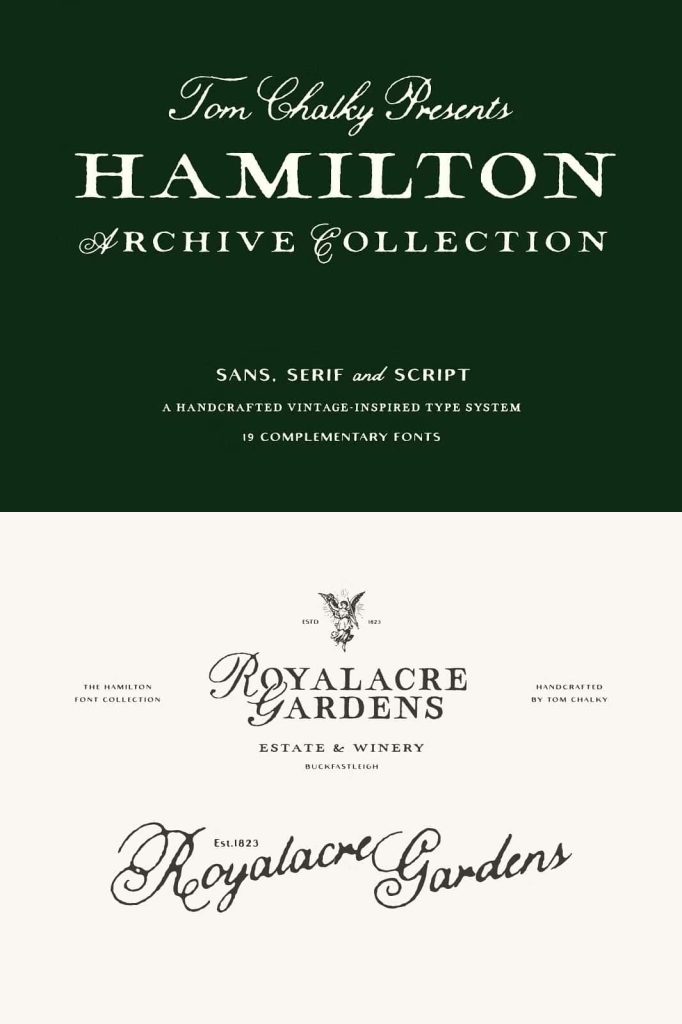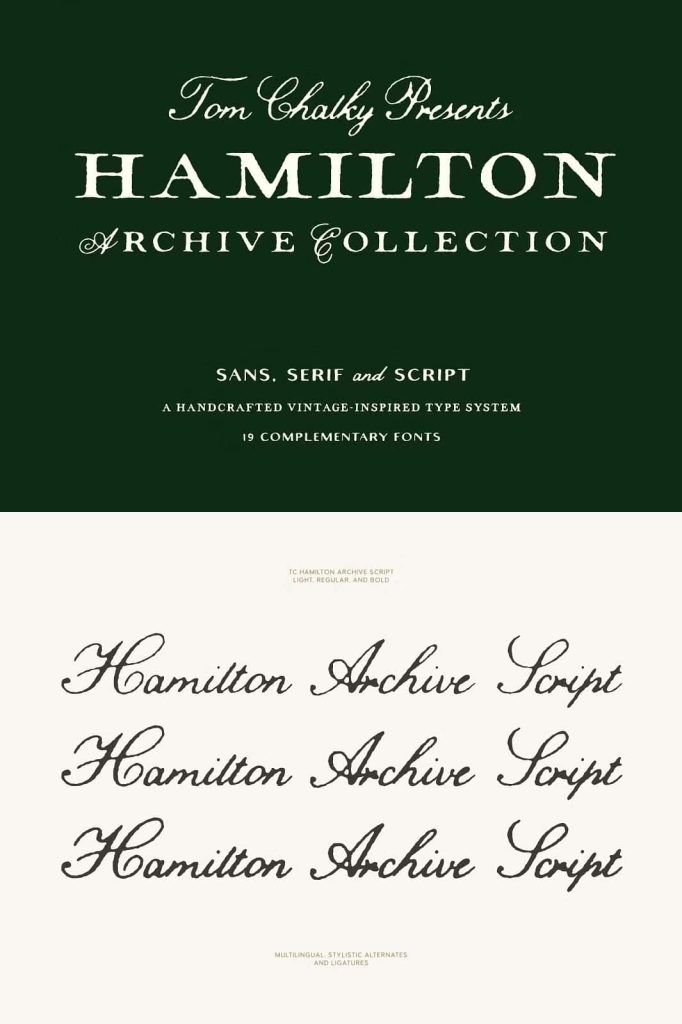
Hamilton Archive Font Collection: Vintage Craft Meets Modern Design
The Hamilton Archive Font Collection brings together timeless craftsmanship and modern design functionality in one beautifully curated set of typefaces. Inspired by the elegance of early 20th-century print design, this collection captures the spirit of traditional typography while adapting it for today’s creative needs. It allows designers to create work that feels authentic, refined, and visually compelling across a wide range of projects.
This collection stands out by combining historical influence with contemporary usability. It delivers a handcrafted aesthetic that reflects the charm of classic printing techniques, yet remains flexible enough for modern workflows. Whether you are designing for print or digital platforms, Hamilton Archive provides the tools to build designs that feel both nostalgic and fresh.
Inspired by Early 20th-Century Print Design
The Hamilton Archive Font Collection draws its character from vintage printing traditions. It reflects the details and imperfections found in early typography, where each letter carried a sense of craftsmanship and individuality. This influence gives the fonts a unique texture and personality that modern digital fonts often lack.
The collection embraces the visual language of historical design while refining it for clarity and consistency. This balance allows you to evoke a sense of heritage without compromising readability or performance.
A Handcrafted Aesthetic with Lasting Appeal
Each typeface in the Hamilton Archive collection features carefully designed letterforms that mimic the look and feel of hand-set type. Subtle irregularities and thoughtful details create a natural, organic appearance that adds depth to your designs.
This handcrafted quality makes your typography feel more personal and engaging. It helps you move beyond generic design and create work that tells a story through its visual style.
Perfect for Timeless and Elegant Projects
Hamilton Archive Font Collection adapts effortlessly to a variety of creative applications. Its vintage charm and refined structure make it particularly effective for projects that require sophistication and character. You can use it confidently in:
- Branding and identity design
- Editorial layouts and magazine spreads
- Wedding invitations and stationery
- Packaging and product design
- Advertising and promotional materials
The collection allows you to create designs that feel cohesive and intentional, whether you are working on a large-scale campaign or a small, detailed project.
Blend of Vintage Charm and Modern Functionality
One of the key strengths of the Hamilton Archive Font Collection is its ability to merge old and new design principles. While it draws inspiration from historical typography, it also incorporates modern design standards to ensure usability across different platforms.
This means you can use the fonts confidently in both print and digital environments. The typefaces maintain their clarity and detail at various sizes, making them suitable for everything from fine print to bold headlines.
Create Strong Visual Identity
Hamilton Archive helps you build a strong and memorable visual identity. Its distinctive style sets your work apart, giving your designs a unique voice that resonates with audiences. Whether you are creating a brand from scratch or refreshing an existing one, this collection provides the flexibility and character needed to achieve your vision.
You can combine different fonts within the collection to create hierarchy and contrast. This allows you to guide the viewer’s attention and structure your content effectively.
Enhance Storytelling Through Typography
Typography plays a crucial role in storytelling, and Hamilton Archive excels in this area. Its vintage-inspired design evokes emotion and nostalgia, helping you connect with your audience on a deeper level. It transforms simple text into a meaningful visual experience.
Use it to create designs that feel authentic and engaging. Pair it with complementary colors, textures, and layouts to fully express its character and bring your ideas to life.
Why Choose Hamilton Archive Font Collection
Hamilton Archive stands out because it offers both style and substance. It provides a complete typographic solution that combines historical inspiration with modern performance. This makes it a valuable asset for designers who want to create high-quality, distinctive work.
The collection simplifies your workflow by offering a cohesive set of fonts that work well together. At the same time, it gives you the creative freedom to explore different styles and compositions.
Elevate Your Design Projects
If you want to create designs that feel timeless, elegant, and full of character, the Hamilton Archive Font Collection provides the perfect foundation. Use it to craft refined branding, sophisticated editorial layouts, and memorable invitations that leave a lasting impression.
Start exploring the possibilities and let Hamilton Archive bring vintage charm and modern precision to every project you create.